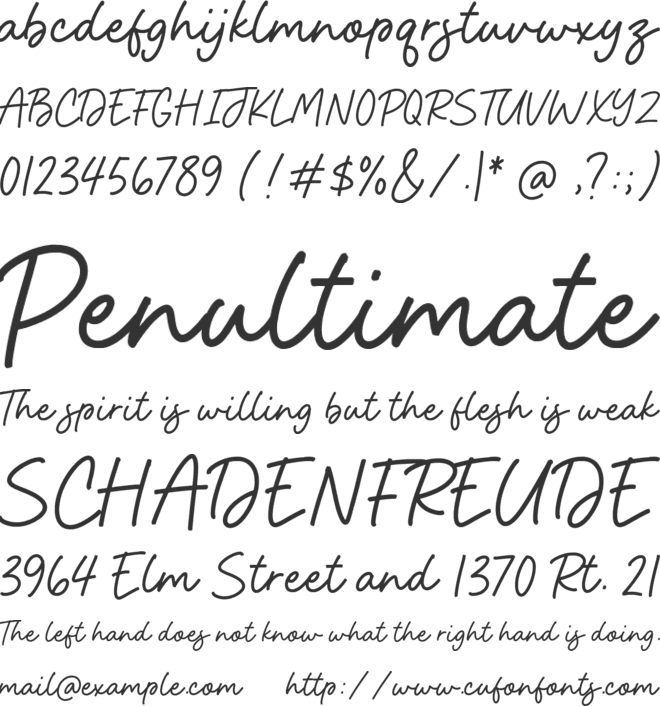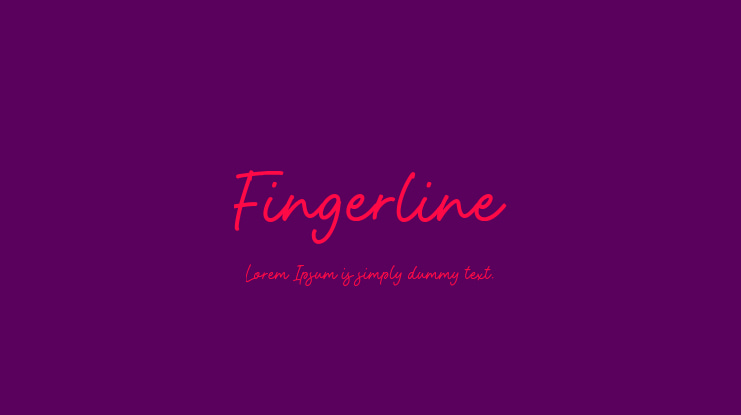
Introduced by Timurtype Studio!
Fingerline is a Modern Handwritten Script Font
This font is a contemporary handwritten script font that blends elegance with a touch of informality. Its flowing strokes and gentle curves evoke a sense of effortless grace, making it ideal for projects seeking a balance between sophistication and approachability. Each letter is crafted with meticulous detail, enhancing readability while maintaining a distinct personality. Whether used in branding, invitations, or editorial design, Fingerline adds a unique, human touch that resonates with modern aesthetics and creativity.
Fingerline Font also supports multilingualism
Fingerline Font features premium :
-Full Set of standard alphabet and punctuation